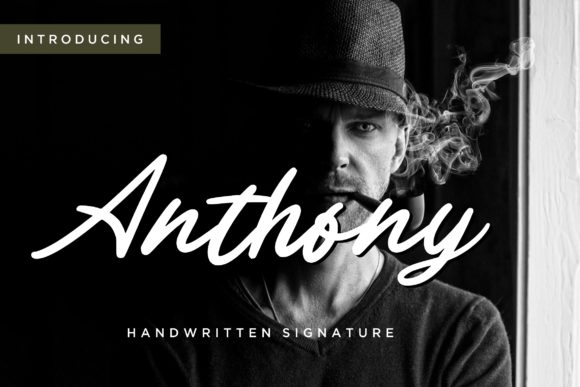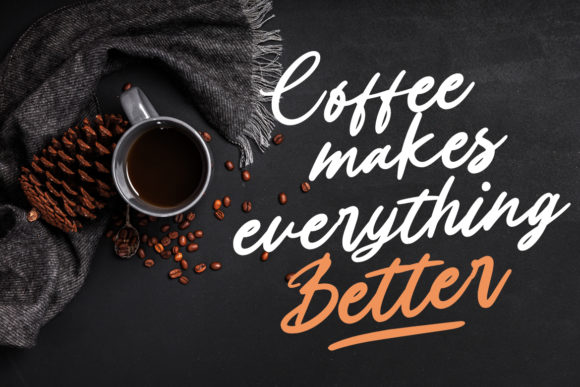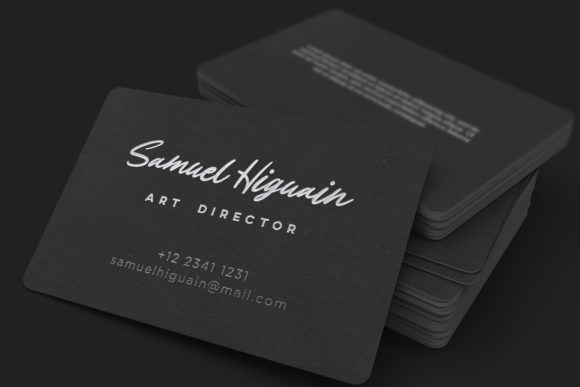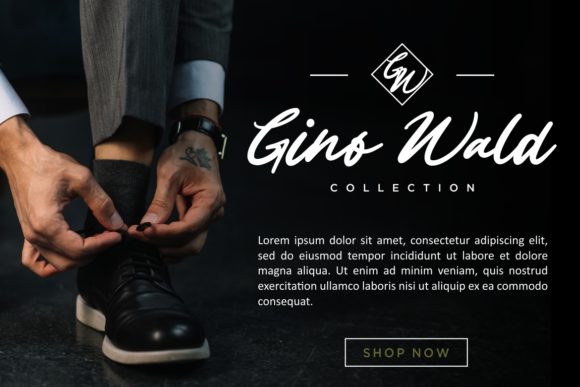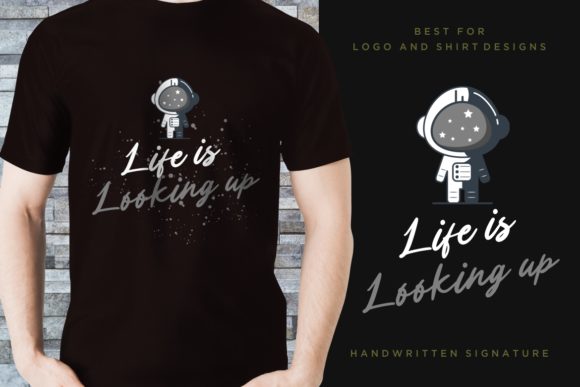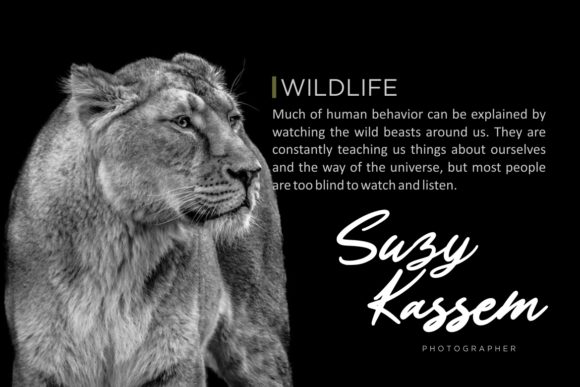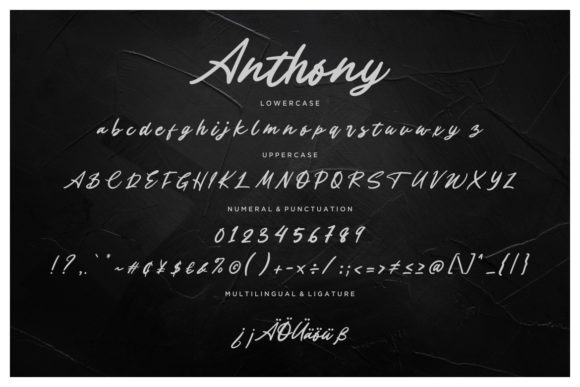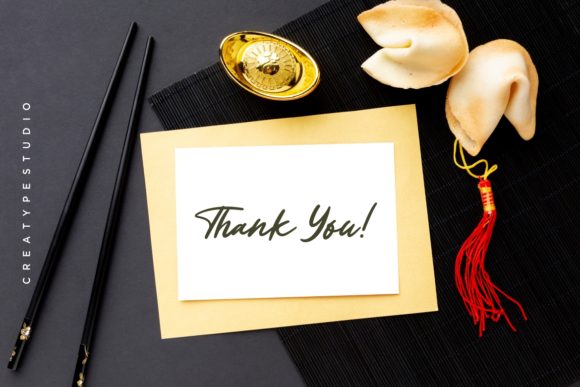
Anthony Font
About Anthony Font
Anthony is a magical, flowing handwritten font. Its well balanced details make it look outstanding in any context, whether it’s being used on busy backgrounds or as a standalone headline!